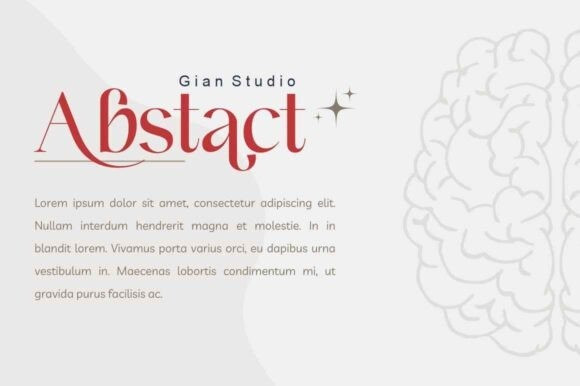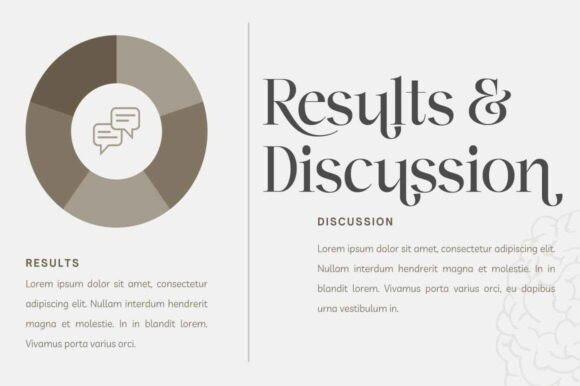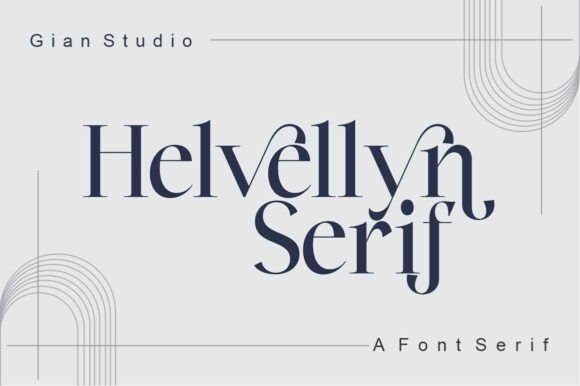
Helvellyn Serif Font
Helvellyn Serif is a sophisticated ligature and alternate Serif font. This typeface has been made carefully to make sure its premium quality and luxury feel. The ligatures and alternates makes this typeface unique and stands out rather than the regular Serif font. This font is very suitable for logo, headline, tittle, and the other various formal forms such as invitations, labels, logos, magazines, books, greeting / wedding cards, packaging, fashion, make up, stationery, novels, labels or any type of advertising purpose.